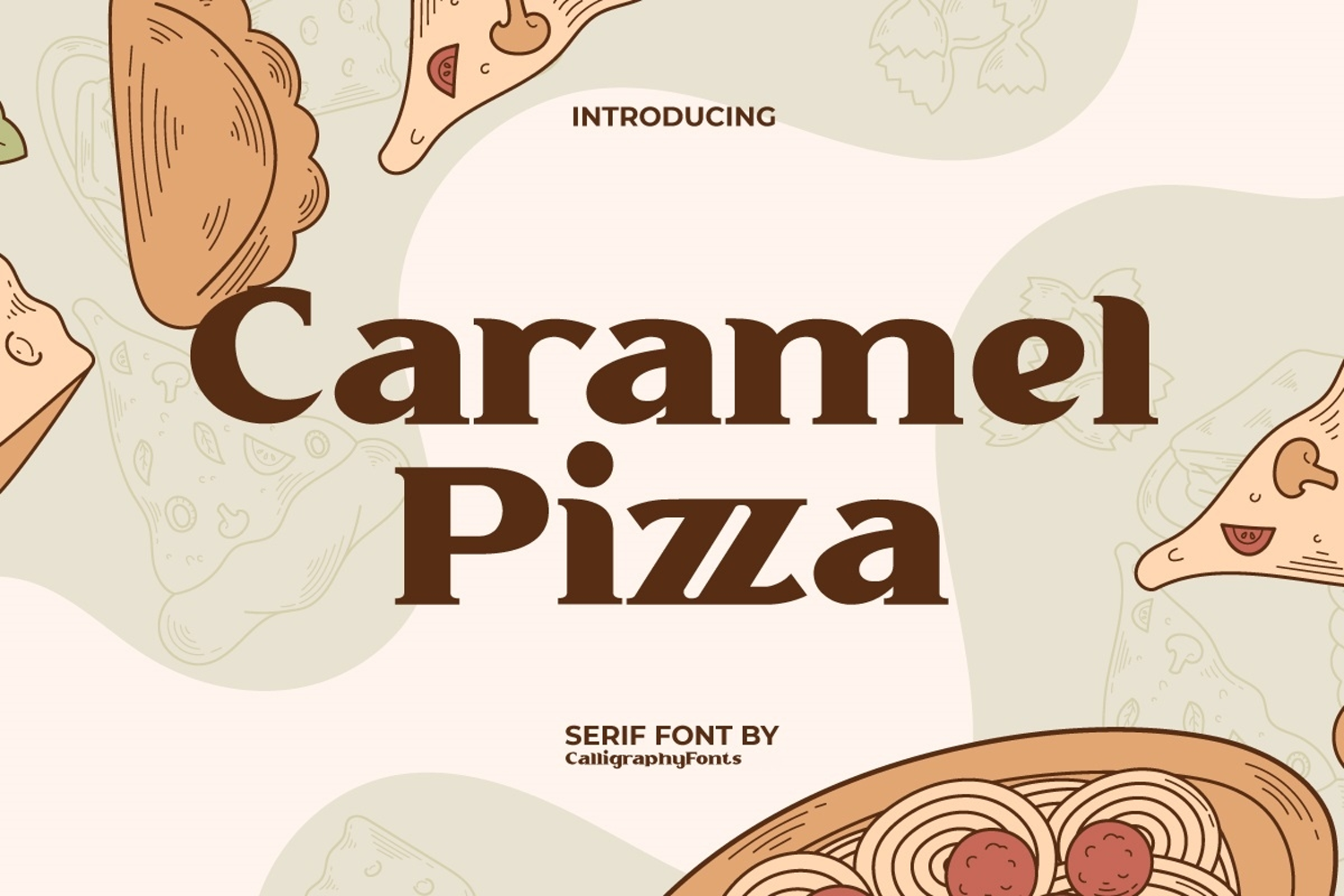
Caramel Pizza Font
Caramel Pizza Font is a visually delicious display font designed to make it easy to create your design easy to read yet looking great inspired by classic serif typefaces wrapped in a fun and tempting theme. This font is perfect for all retro modern designs and projects. It also combines very well with other types of fonts. It will be suitable for author, cafes, culinary class, food vlogger, graphic design, honey beekeeper, hotel, pizzeria, restaurant, web designer, and much more.
Fonts are more than letters—they’re the flavor of your design. Introducing Caramel Pizza Display Font, a playful and deliciously creative typeface that adds warmth, energy, and personality to every project. Designed with a handcrafted touch and a bold character, this font is perfect for anyone who wants their work to feel fun, inviting, and unforgettable.
Caramel Pizza Display Font brings a sense of joy and creativity through its rounded edges, quirky letterforms, and unique style. It’s the perfect choice for branding, packaging, posters, children’s books, food-themed projects, social media graphics, and event invitations. Whether you’re designing for a bakery, café, or lifestyle brand, this font makes your message feel friendly and approachable.
In a competitive creative space, your typography should speak louder than words. Caramel Pizza Display Font is more than just a font—it’s an ingredient that transforms ordinary designs into delightful works of art. Its unique charm makes it a go-to for projects that need both character and readability.
Caramel Pizza Display Font is a bold and sturdy vintage style serif display font that is captivating. It has a recognizable taste and a familiar warm nostalgic feel to it. Works well on banner, billboard, blog, branding, brochure, covers, heading, labels, logos, menu, mockup, packaging, poster, quotes, signage, template, title, website, and more as well as on the art of shorter or longer texts.